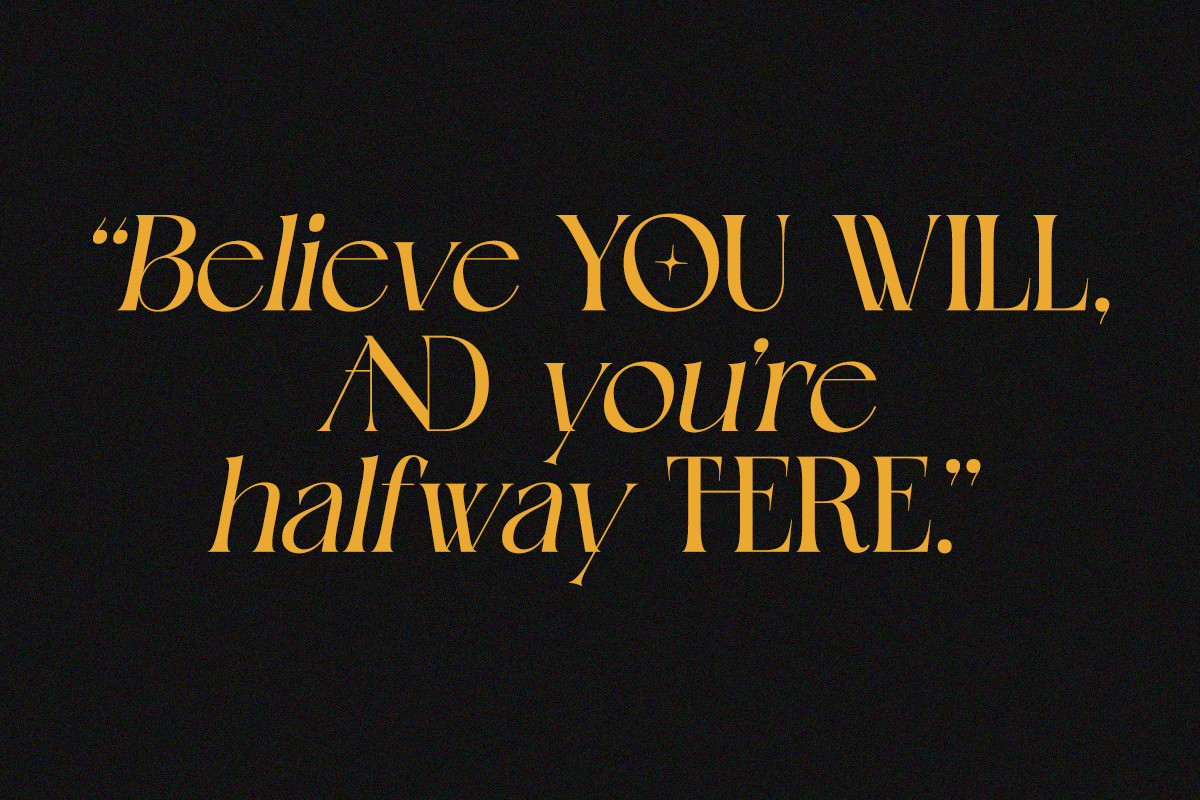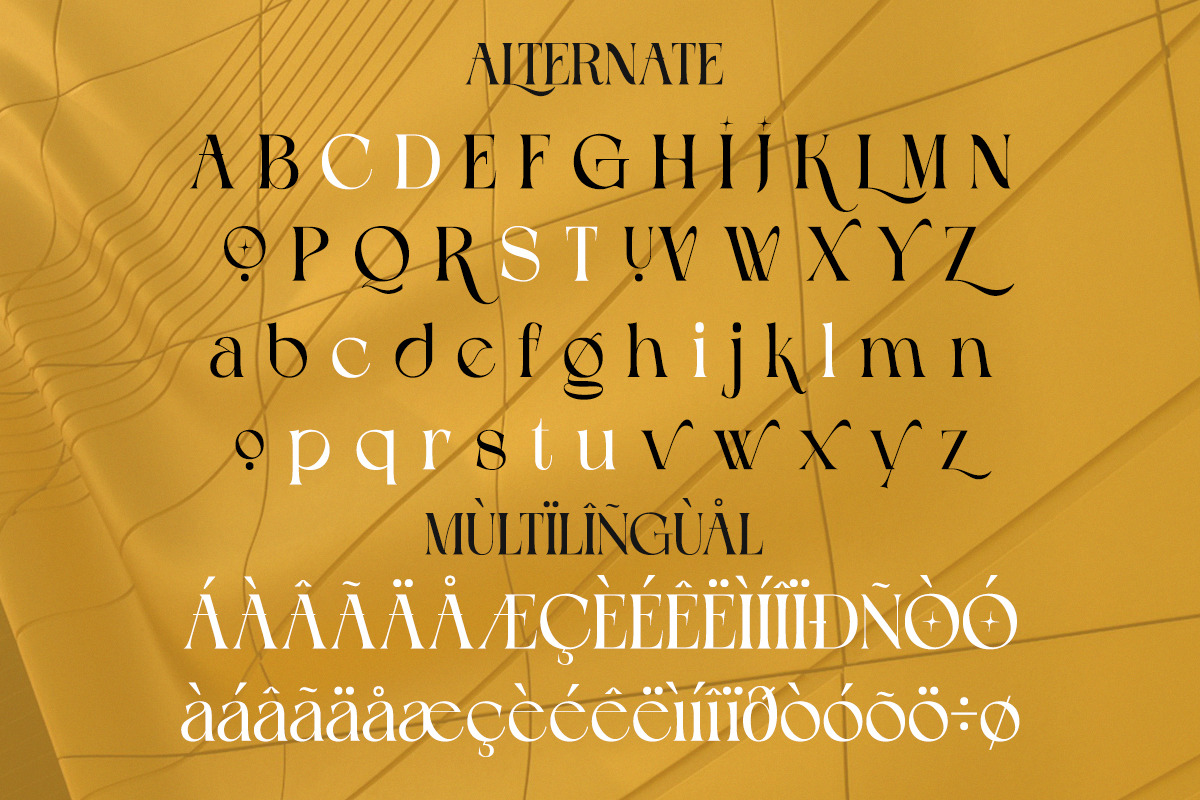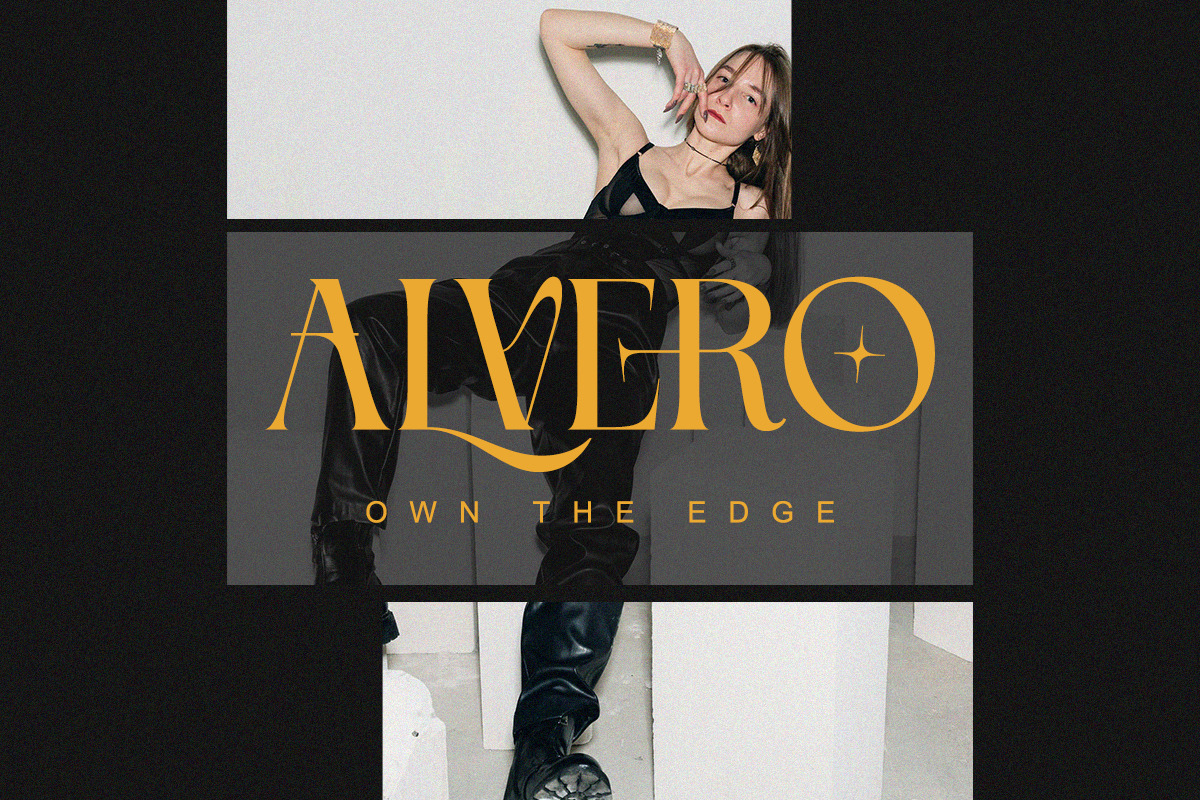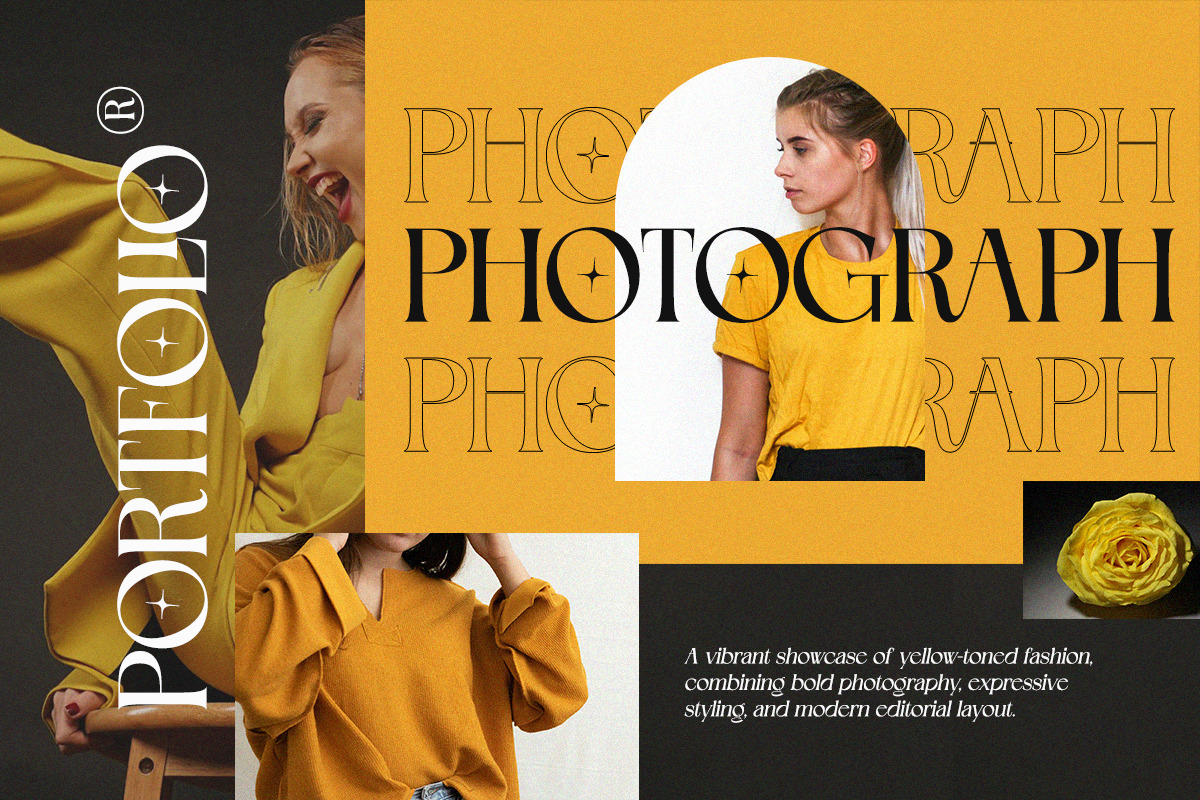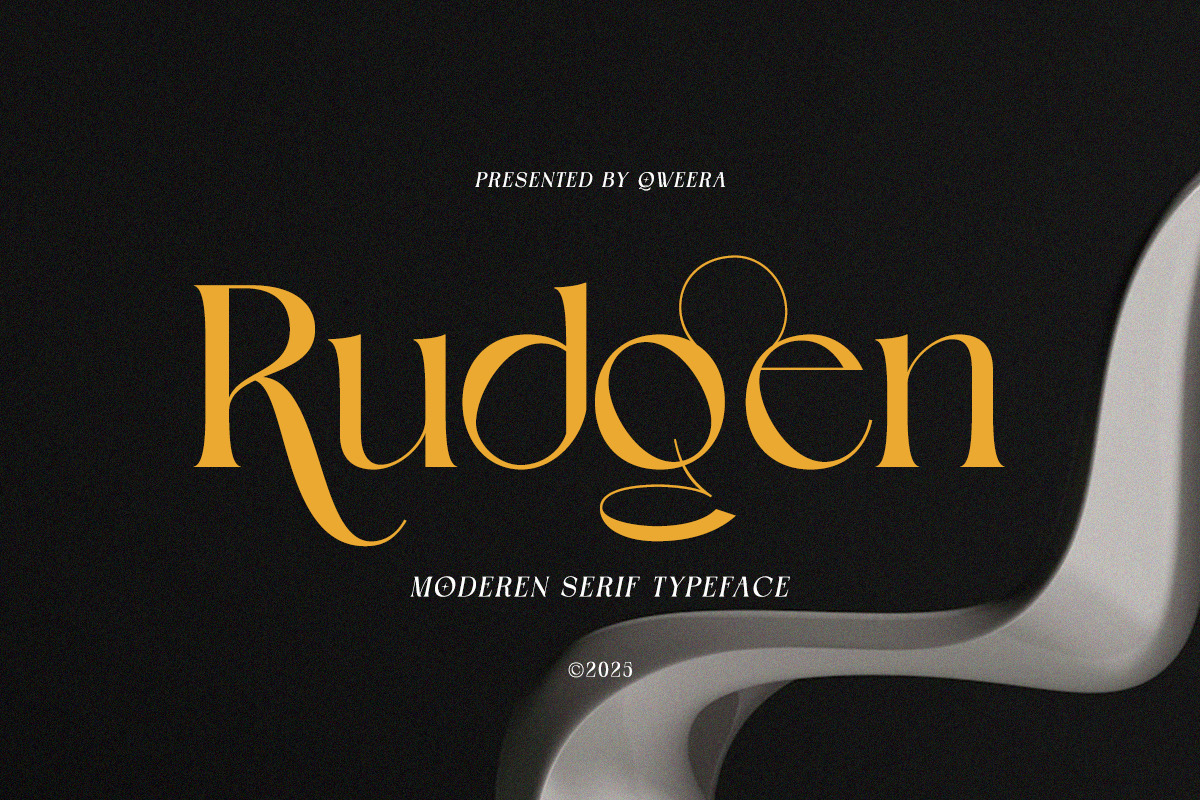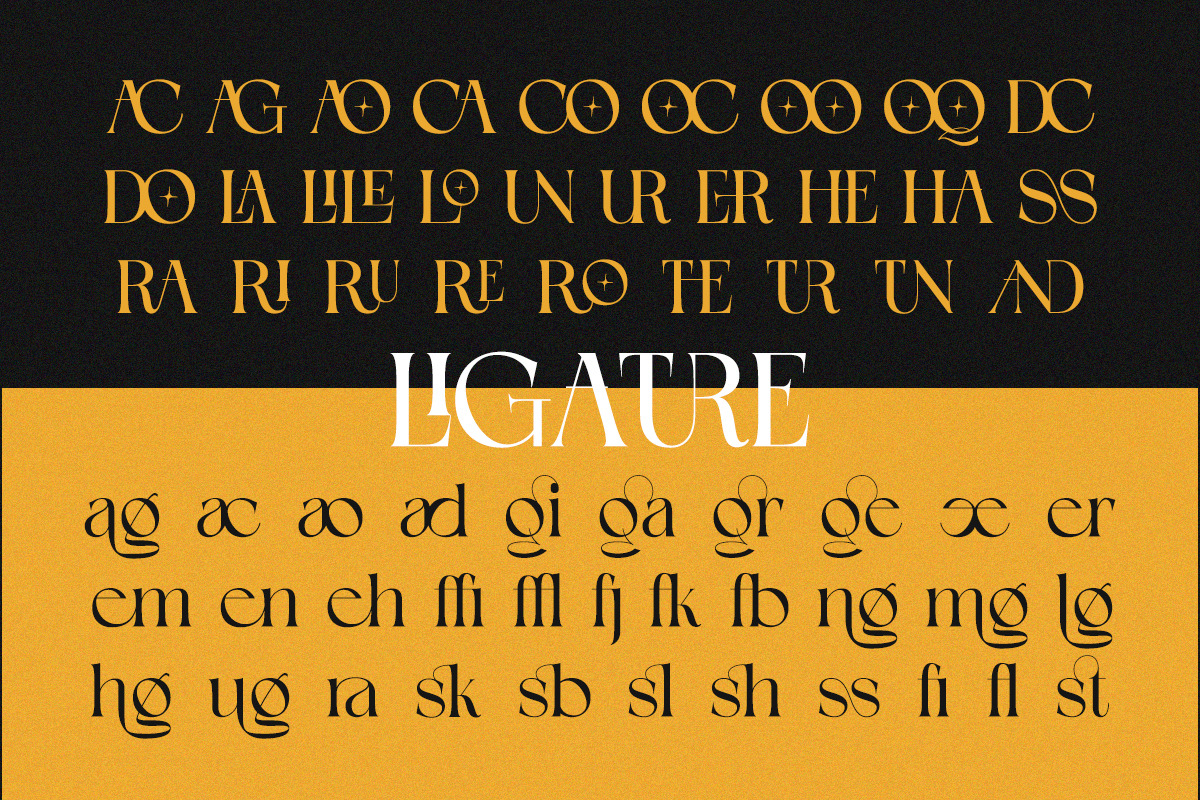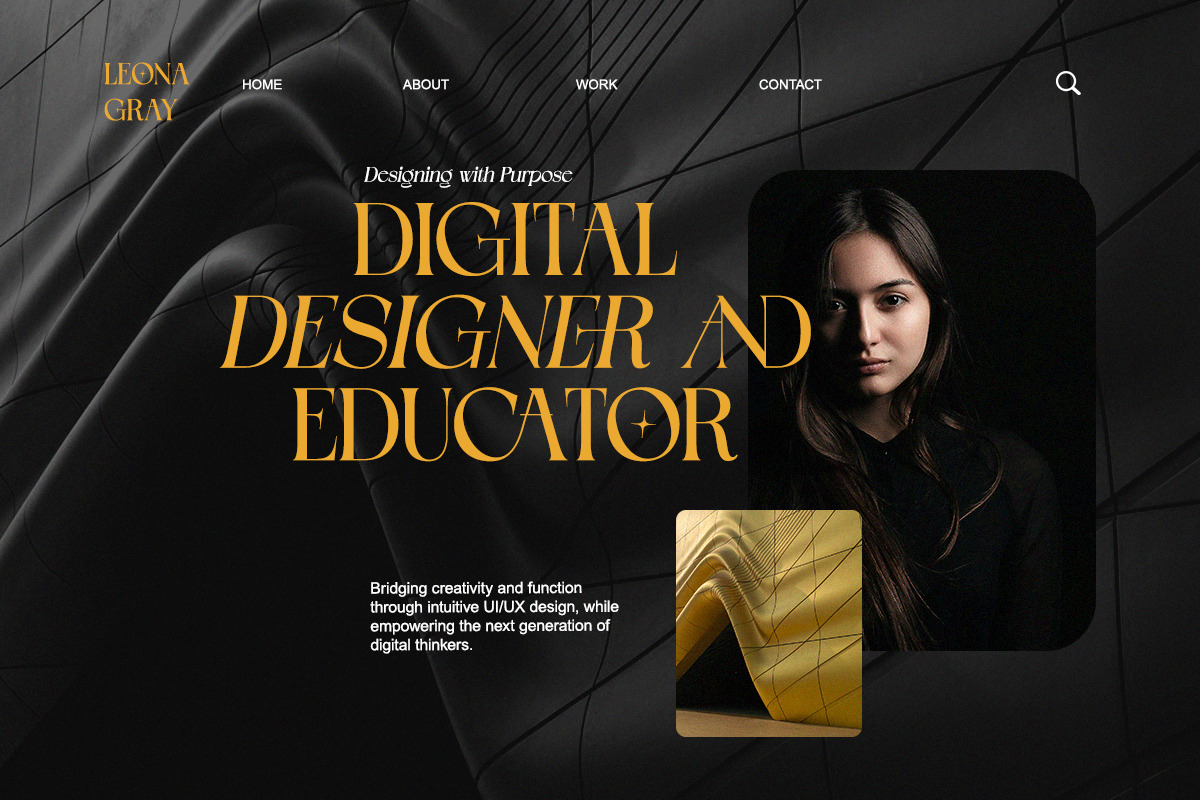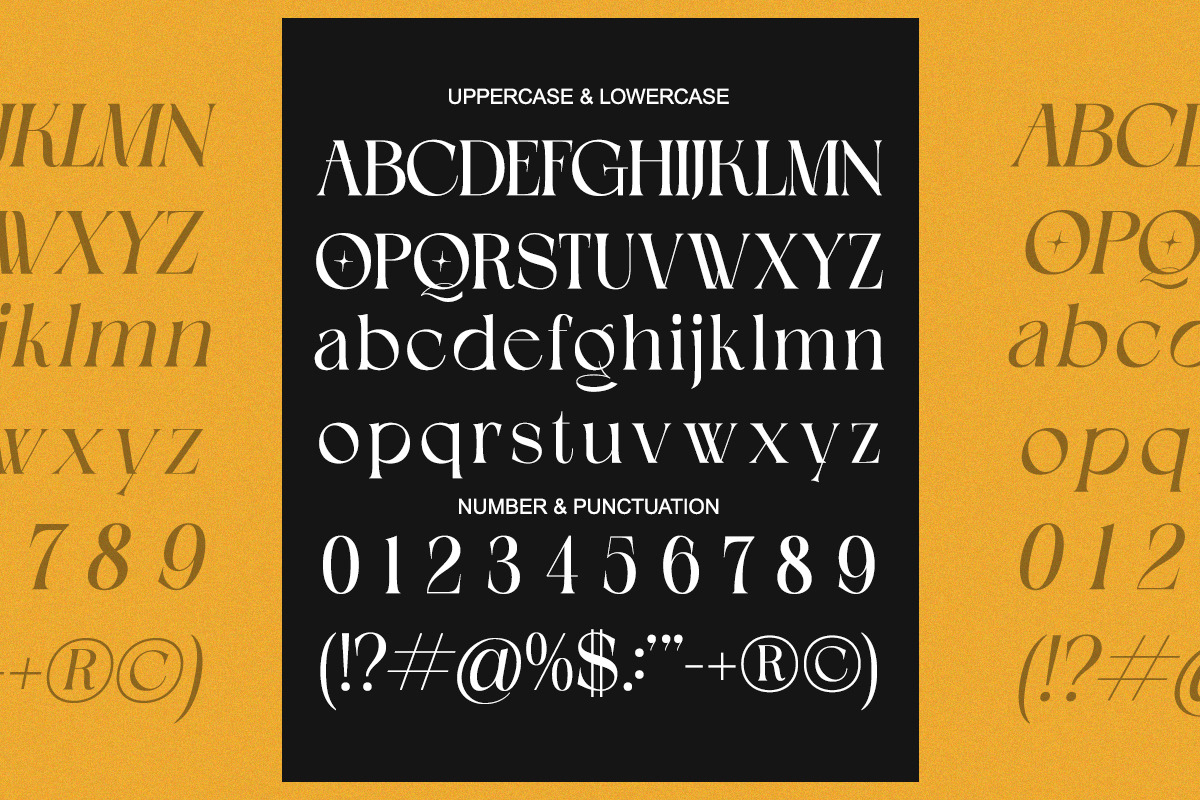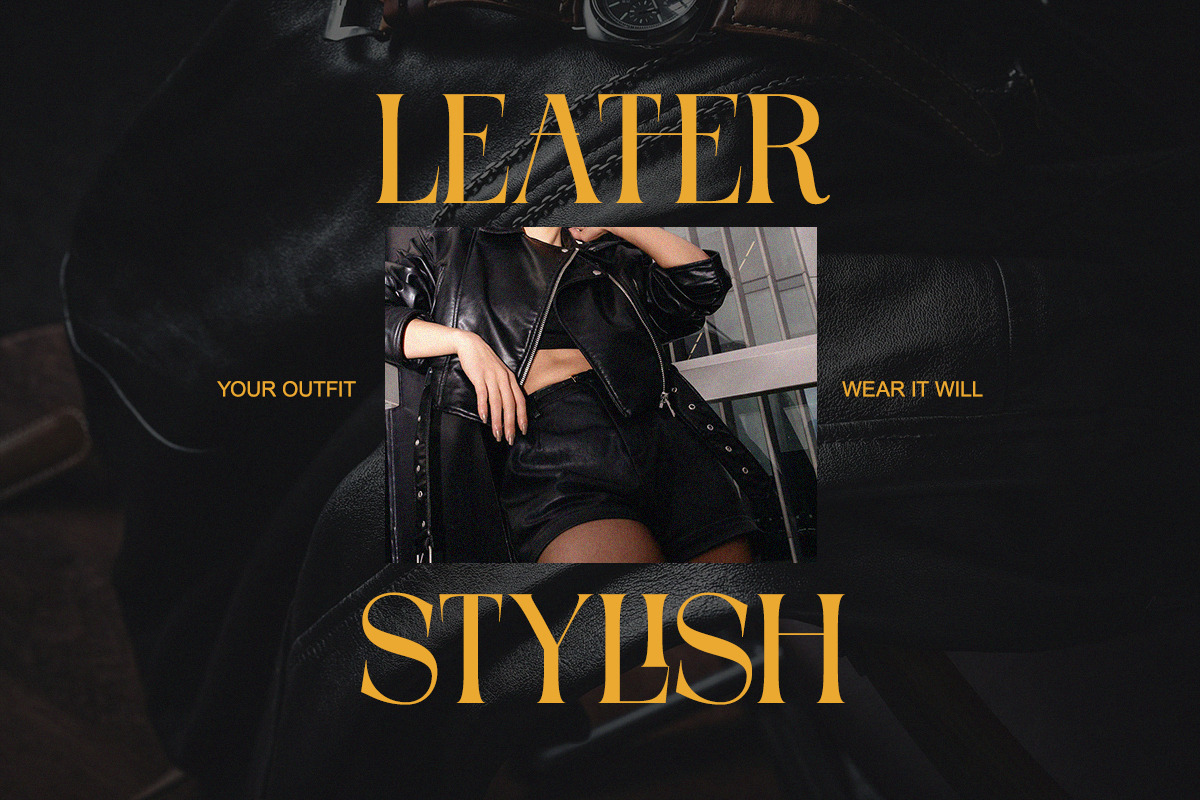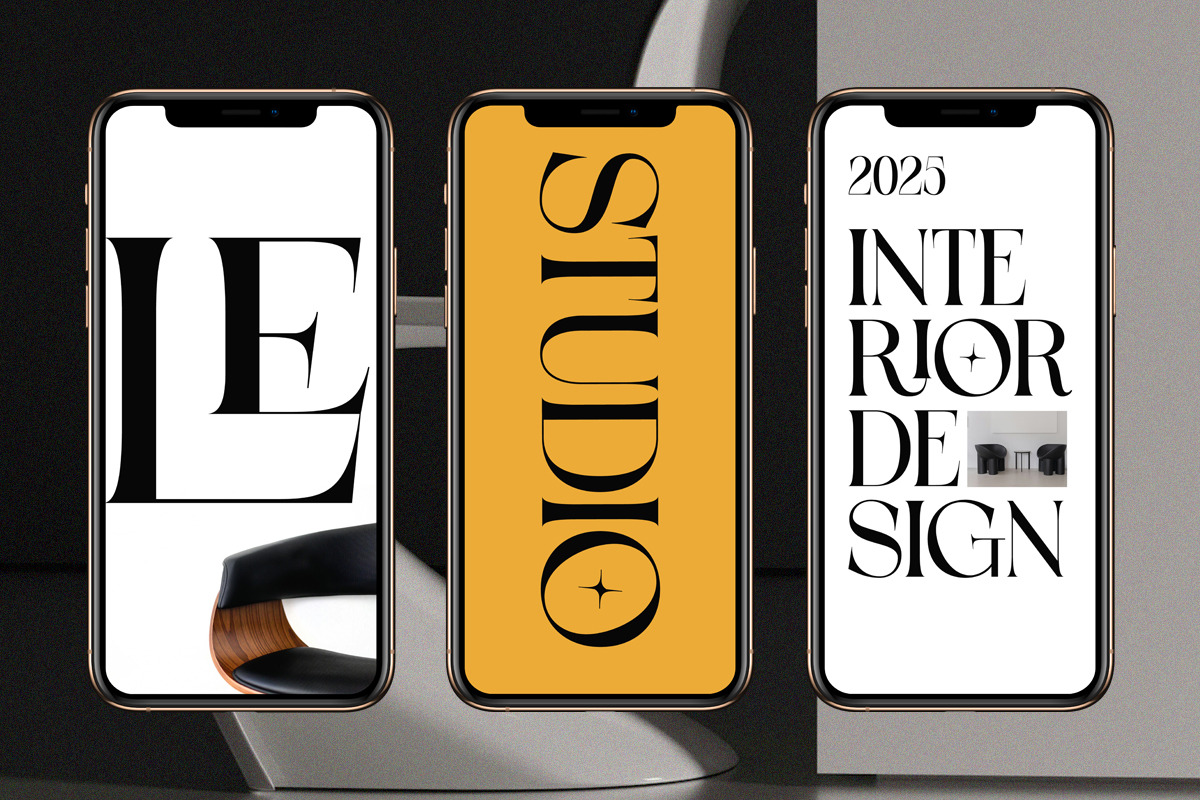
Rudgen - Modern Elegant Serif Font
Rudgen – Modern Serif Typeface
Rudgen is a modern elegant serif font crafted for designers who demand timeless style and high versatility. With sleek curves, refined ligatures, and striking alternates, Rudgen delivers sophistication that elevates every project. Its sharp contrast between thick and thin strokes creates a luxurious and confident presence—perfect for branding, fashion campaigns, editorials, packaging, and high-end presentations.
Whether you design logos, magazine layouts, website headers, or social media graphics, Rudgen adapts seamlessly to both digital and print formats. Multilingual support, complete punctuation, and a wide range of stylistic alternates make it not only beautiful but also powerful in functionality.
Bring your creative projects into the spotlight with Rudgen and let every word shine with elegance.
✨ Font Features
- Regular & Italic
- Stylish Alternates & Ligatures
🎯 Perfect For
- Luxury Branding
- Fashion & Beauty Editorials
- Logo Design
- Packaging & Product Design
- Social Media Graphics
- Wedding Invitations
- High-End Magazines
- Interior & Lifestyle Branding